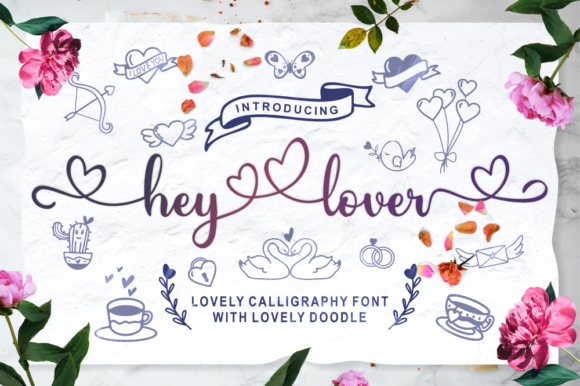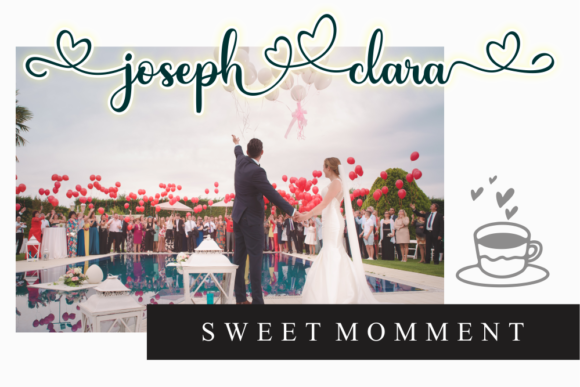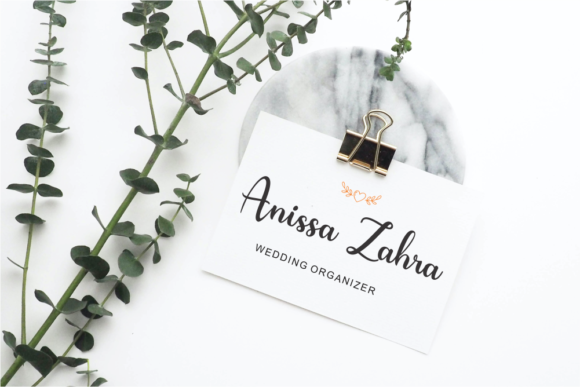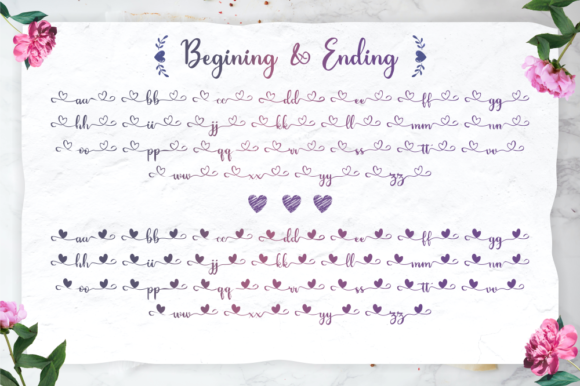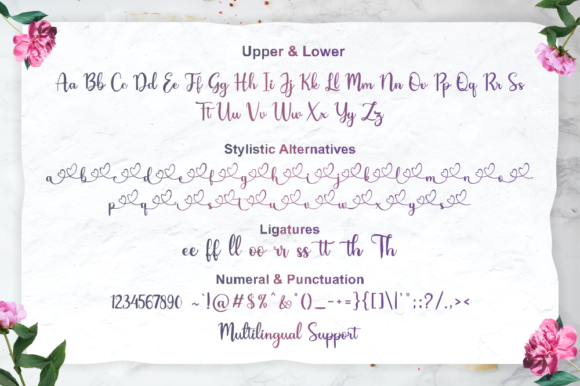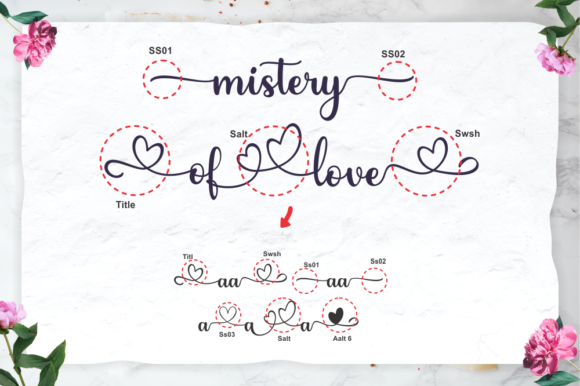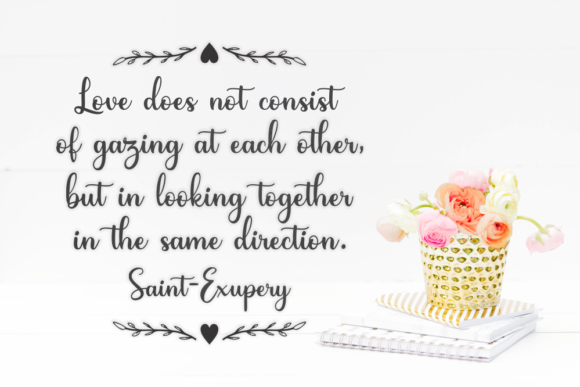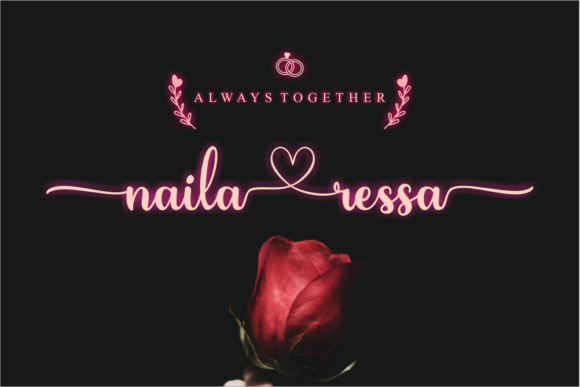
Hey Lover Font
About Hey Lover Font
Hey Lover is a beautiful script font. It features cute ligatures and gorgeous swashes. This font will add a romantic touch to your designs. Fall in love with its authentic feel and use it to create gorgeous wedding invitations, beautiful stationary art, eye-catching social media posts, and cute greeting cards.